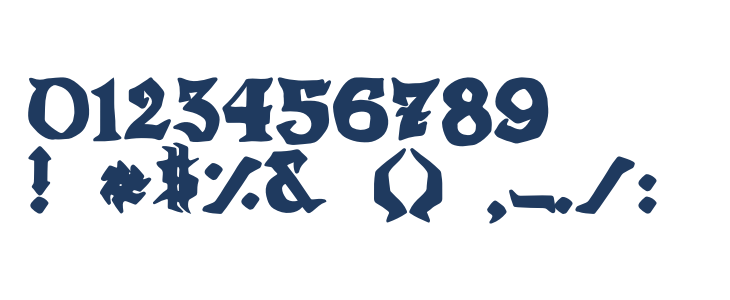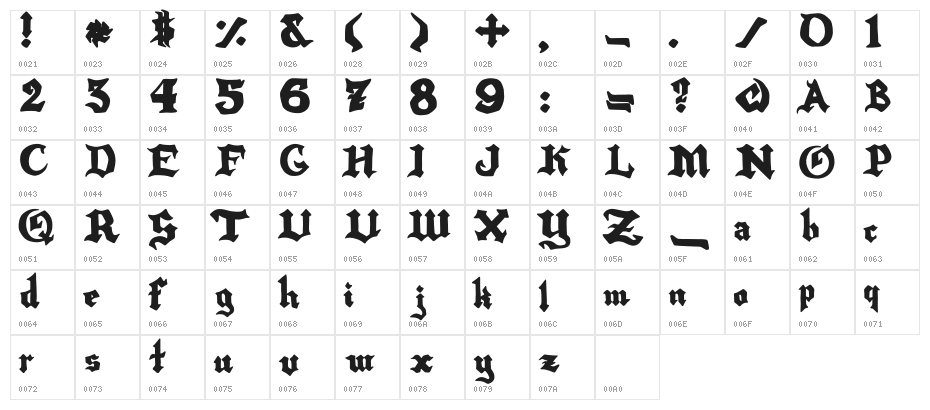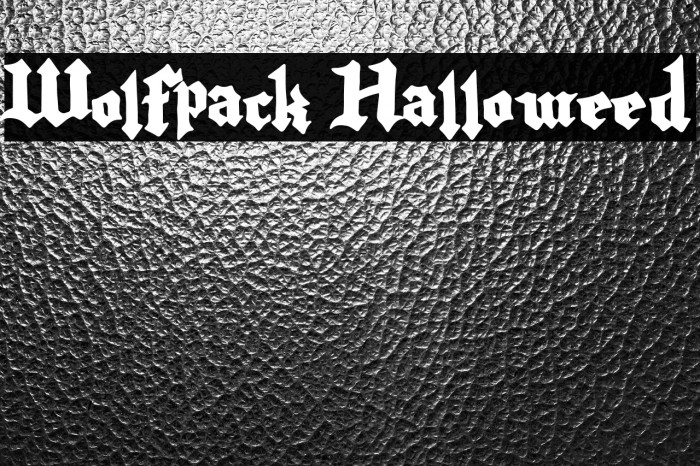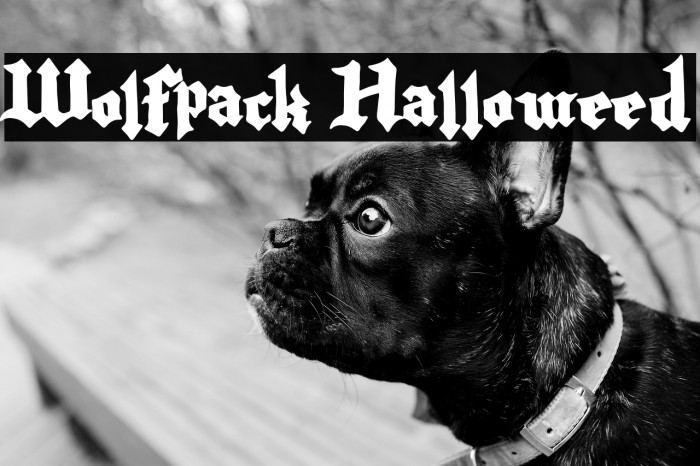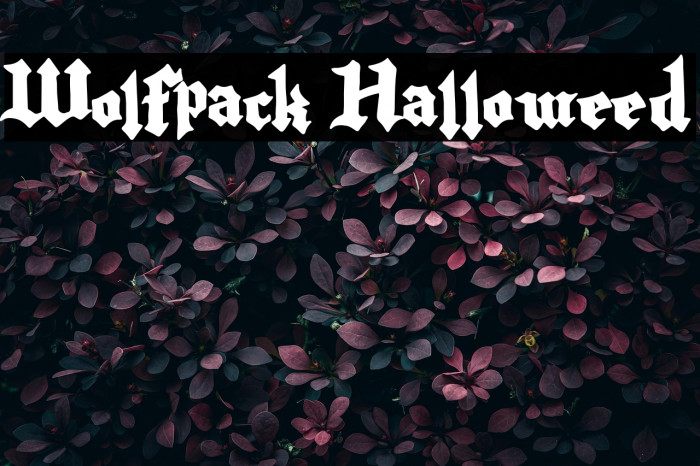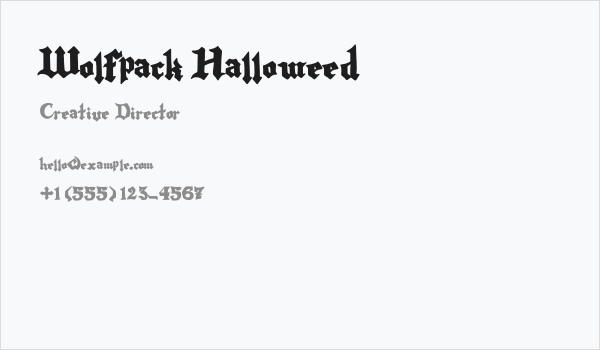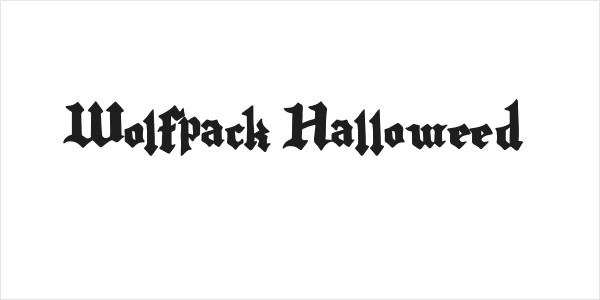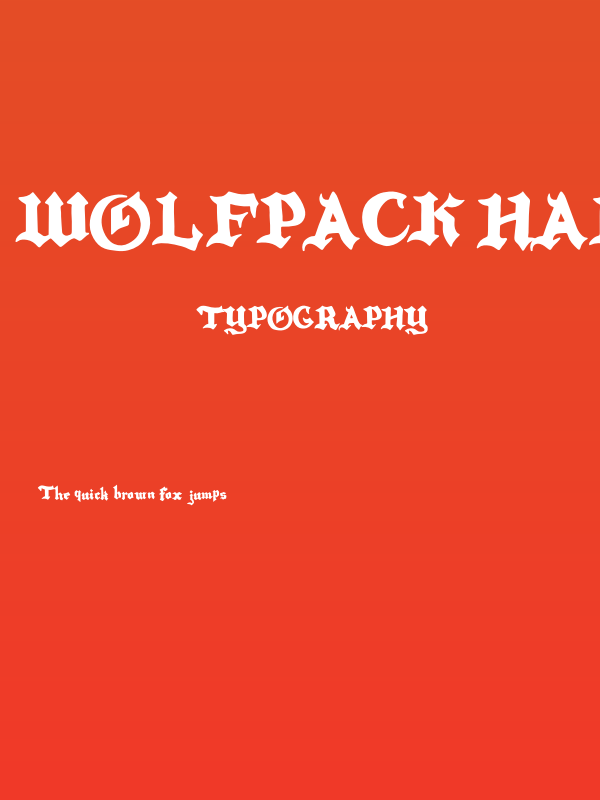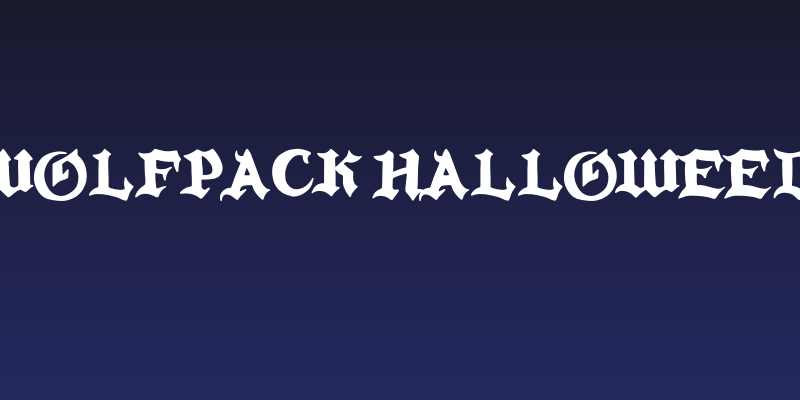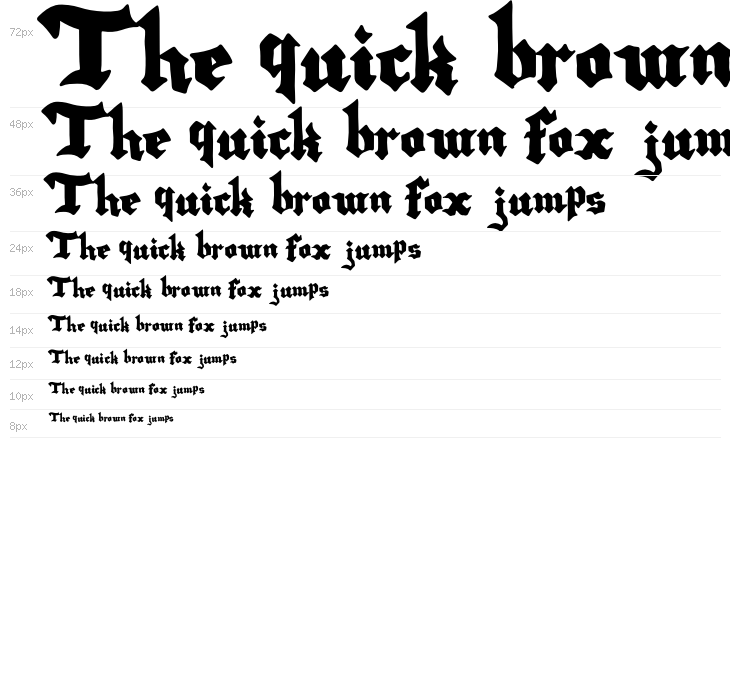
Wolfpack Halloweed Font
Wolfpack Halloweed Description
This font exhibits a bold and dramatic style with a distinct Gothic influence, characterized by sharp, angular lines and a heavy weight. The uppercase letters are particularly striking, with exaggerated serifs and intricate detailing that evoke a sense of medieval or fantasy themes. The lowercase letters maintain the same stylistic elements, ensuring consistency and readability. Numbers and special characters are equally bold, with unique shapes that complement the overall aesthetic. This font's strong presence makes it ideal for projects that require a touch of mystery or historical flair.
| Proposed Projects | Ideal for Halloween-themed designs, fantasy book covers, game titles, and posters. |